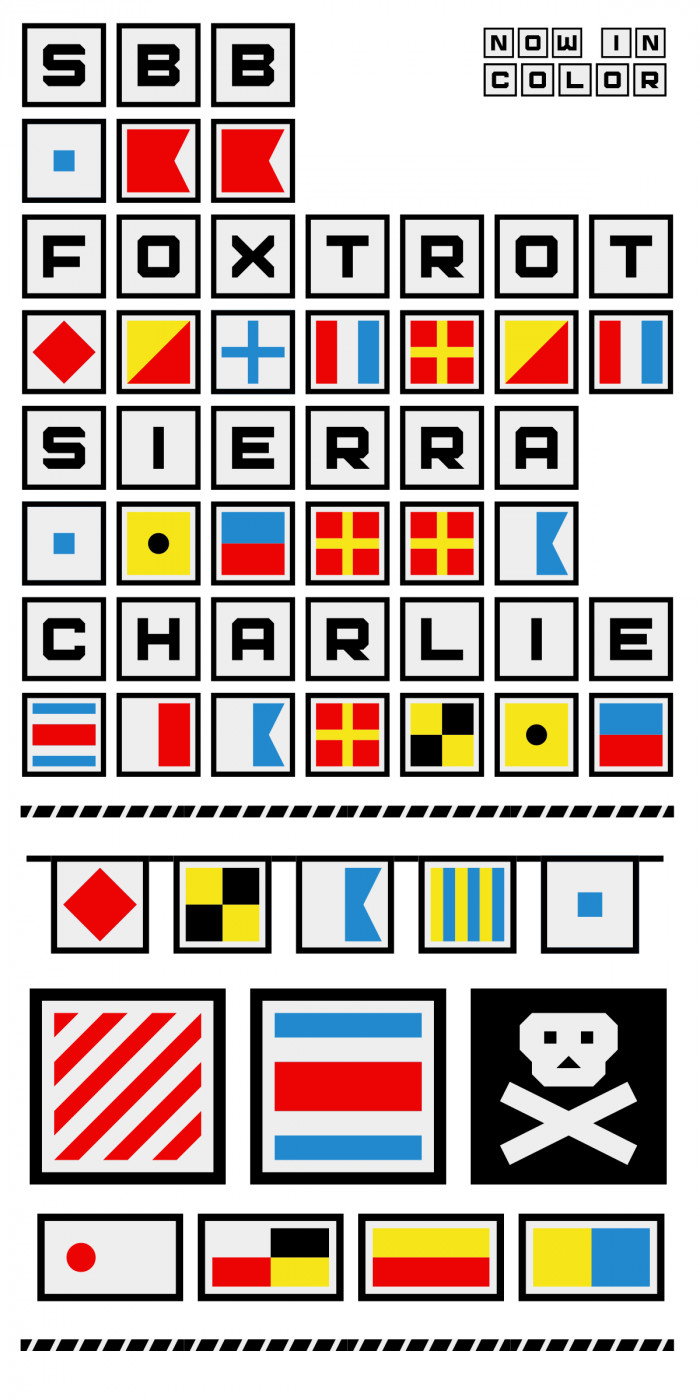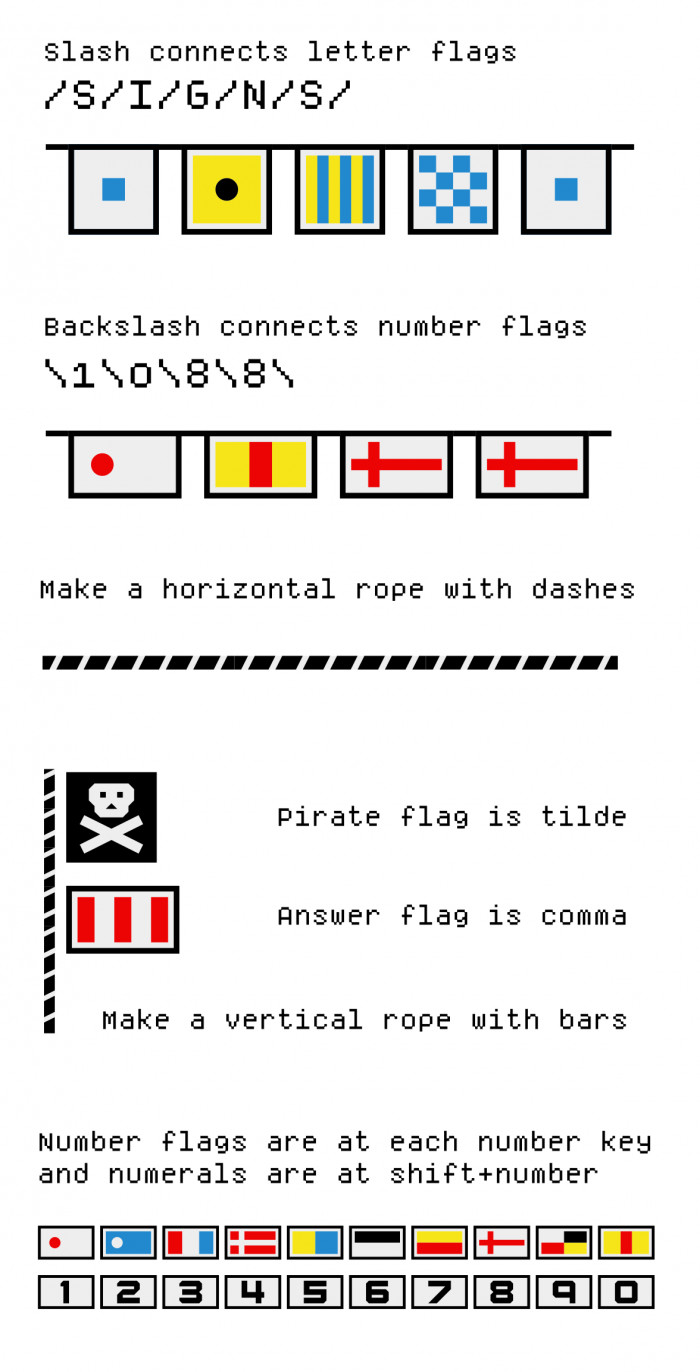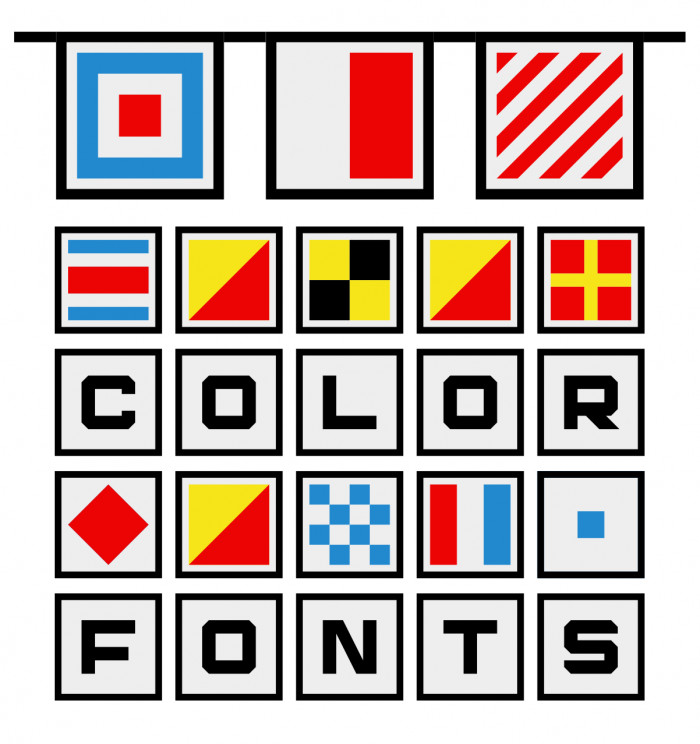
• In 2009, I made a black and white nautical flags set called Foxtrot Sierra. I finally got around to revisiting it with color. I've made a number of refinements to the Foxtrot Sierra design beyond just adding color. One note, the numbers should be pennants, but I decided to stick with my wider rectangle for this font.
(Foxtrot Sierra is FS in the NATO alphabet for FontStruct. Charlie is C for color.)
A few hints at how to use SbB Foxtrot Sierra Charlie.